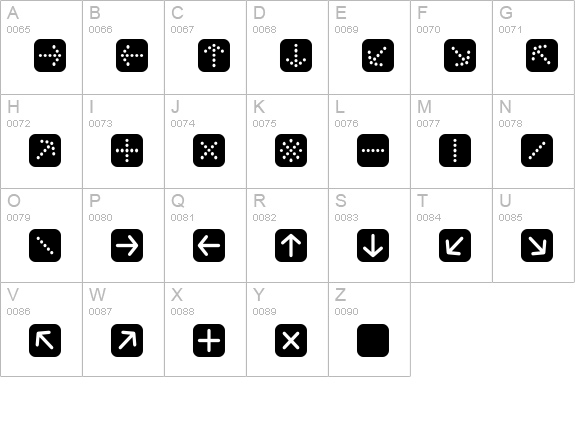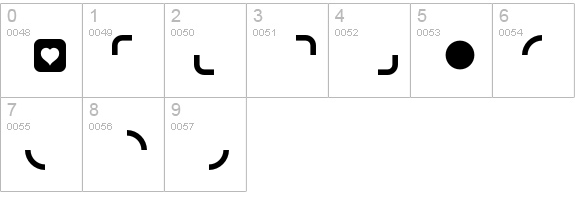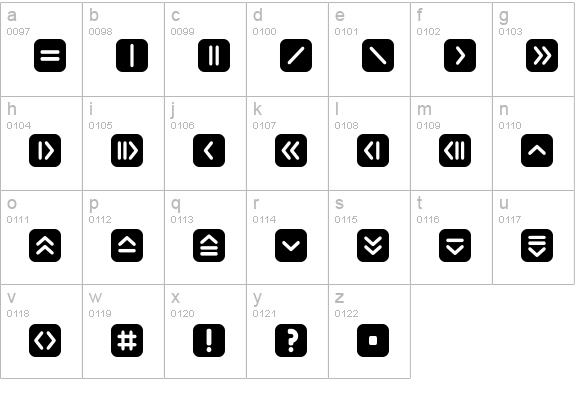
ButtonBonus-RoundedNegative Font Details
ButtonBonus-RoundedNegative is a modern and stylish font that combines sleek lines with a touch of playfulness. Its rounded edges give it a friendly and approachable look, making it perfect for a wide range of design projects. This font is versatile and can be used for anything from logos to website headers to social media graphics. What's even better is that ButtonBonus-RoundedNegative is available for free download at FontsMarket.com. This means you can easily add this eye-catching font to your collection without breaking the bank. Don't miss out on the opportunity to elevate your designs with this unique and engaging typeface. Download ButtonBonus-RoundedNegative today and start creating stunning visuals that stand out from the crowd.